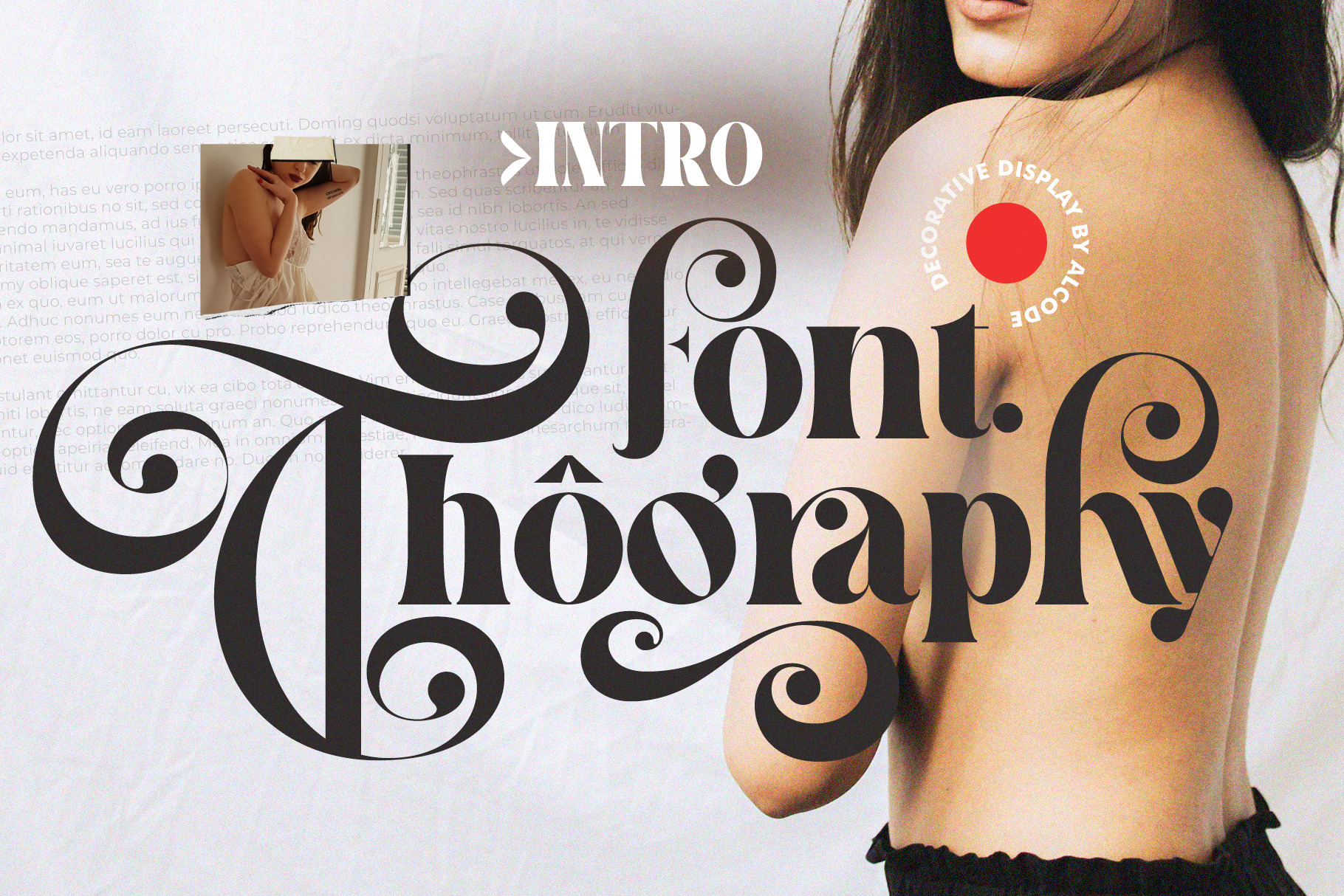
Font Thography
Thography font is a new decorative typeface. This font has a very beautiful and elegant opentype feature, so that it can make users happy and can increase creativity or productivity, you can use this font very easily.
Included Multiligual Support And Special Ligatures